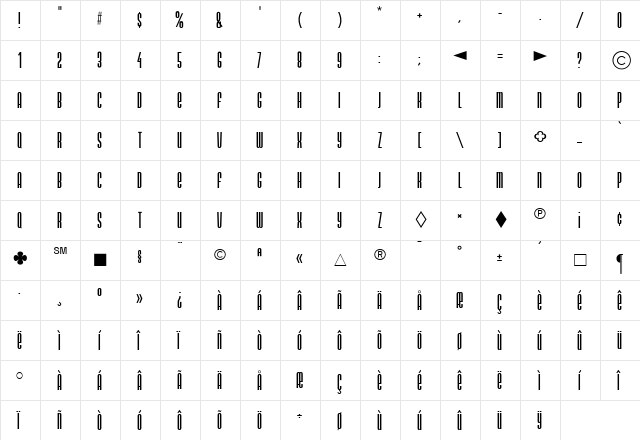
CgNeon Medium Font Preview
CgNeon Medium
Design Context for CgNeon Typeface
CgNeon channels digital-age aesthetics through its sharp, structured letterforms — ideal for brands that want to signal innovation.